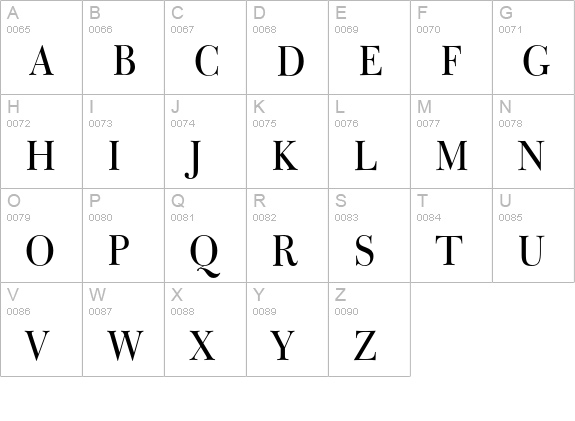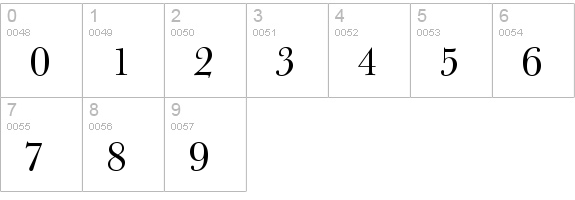
Bulmer font is a timeless and elegant typeface that exudes sophistication and charm. With its classic serif design and graceful curves, Bulmer is the perfect choice for adding a touch of refinement to any project. Whether you are creating invitations, branding materials, or editorial content, Bulmer's versatility and readability make it a top choice for designers and creatives alike. Best of all, Bulmer font is available for free download at FontsMarket.com. This means you can easily access this exquisite typeface and elevate your designs without breaking the bank. Embrace the beauty and elegance of Bulmer font in your next project and make a lasting impression with its timeless appeal.